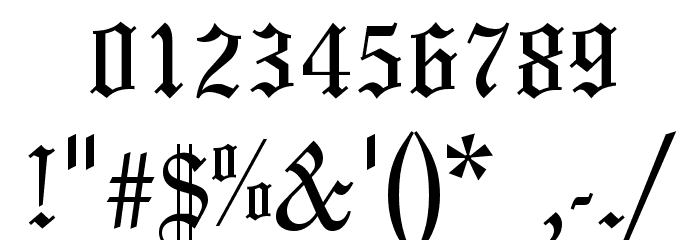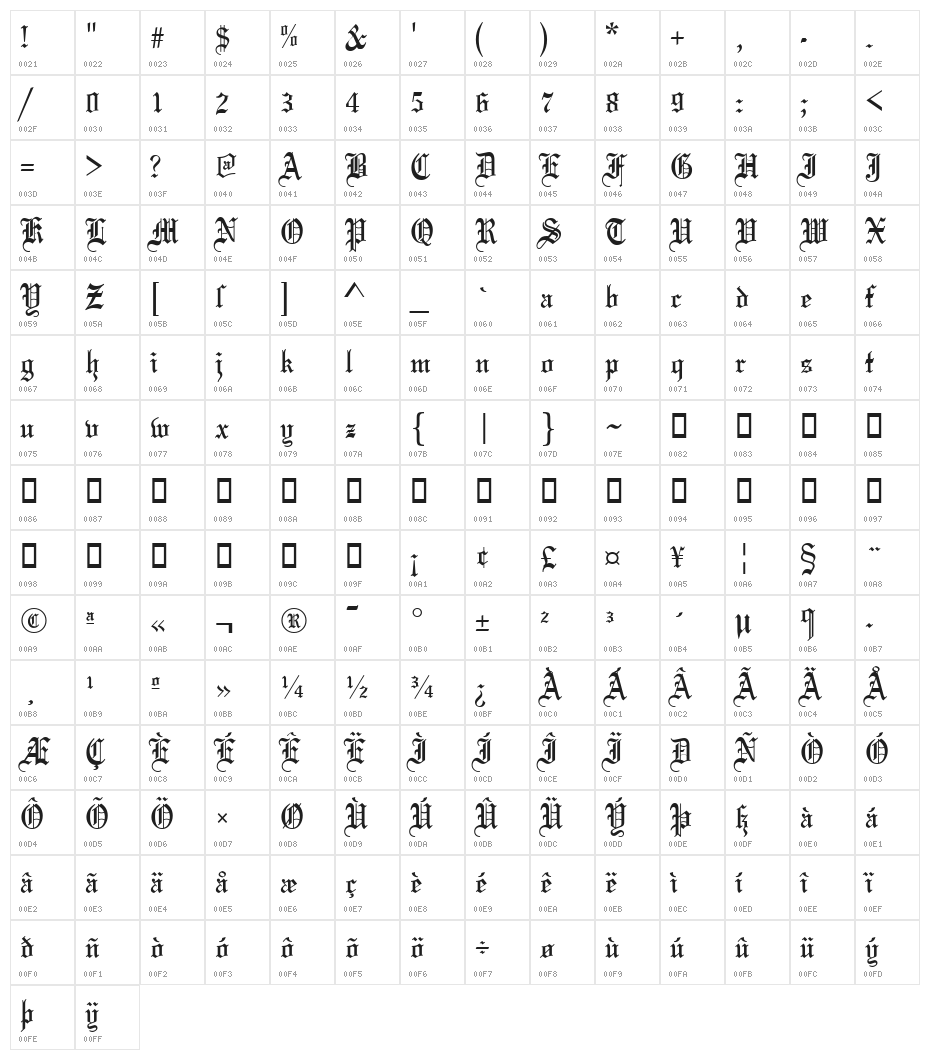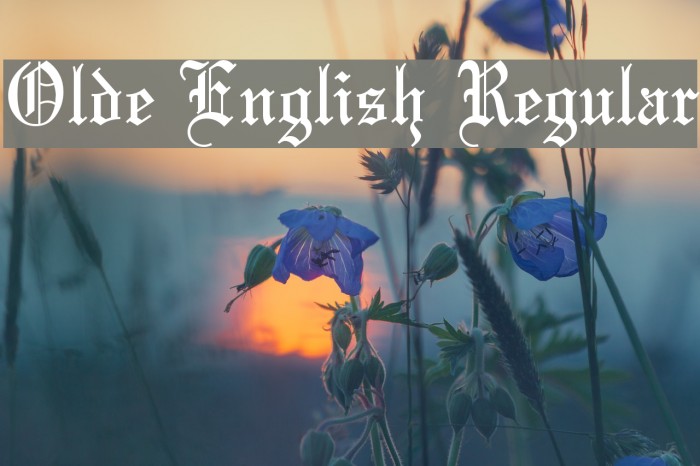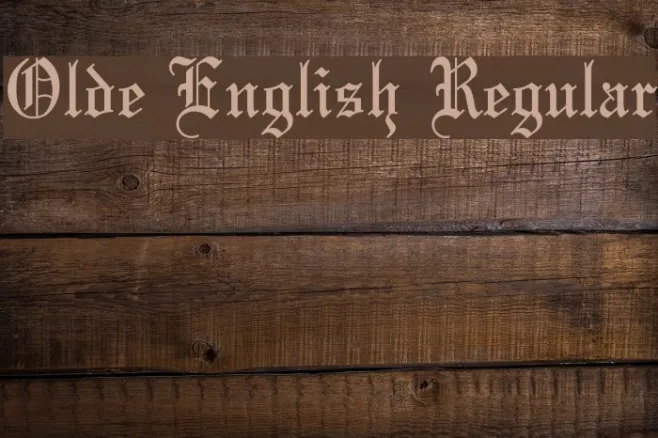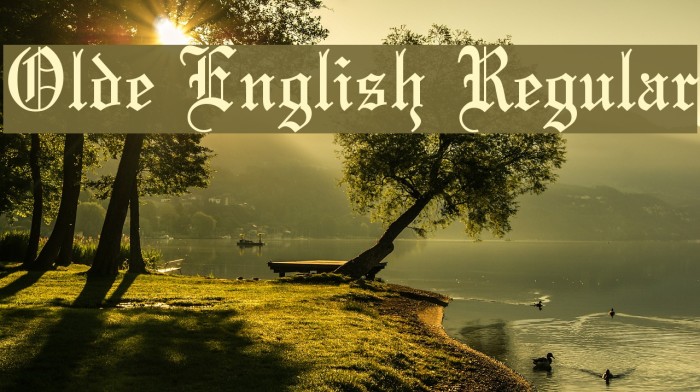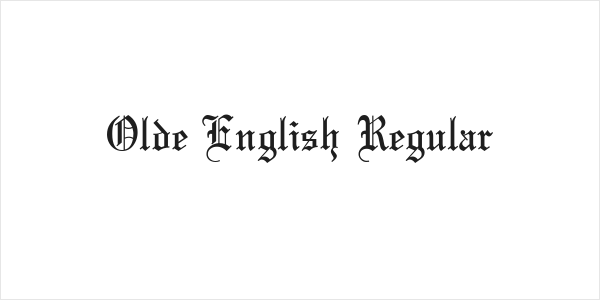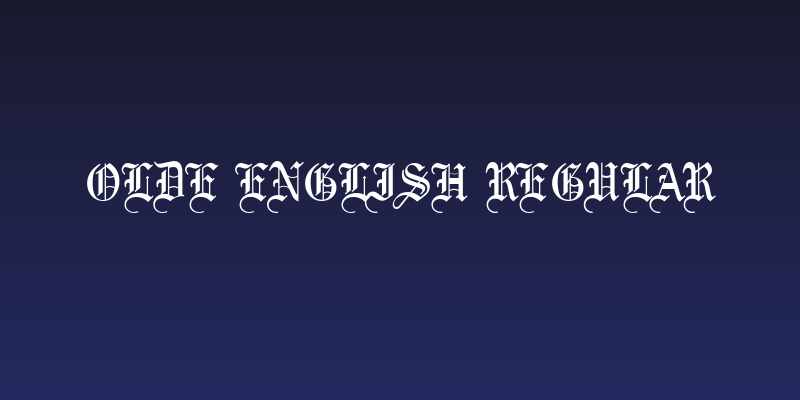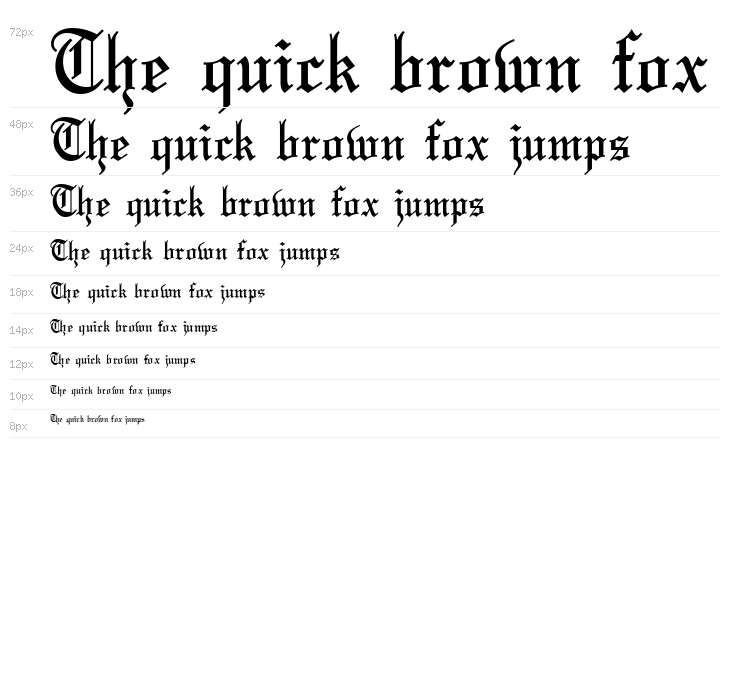
Olde English Regular Font
Olde English Regular Description
This font embodies the traditional elegance of Old English script, characterized by its intricate and ornate letterforms. The uppercase letters feature elaborate flourishes and sharp, angular lines, while the lowercase letters maintain a consistent style with slightly less embellishment. The numerals are bold and distinct, matching the overall aesthetic. Special characters are designed with the same attention to detail, ensuring a cohesive look across all glyphs. The font's historical and decorative nature makes it ideal for projects that require a touch of classic sophistication.
| Proposed Projects | Ideal for certificates, invitations, historical documents, and branding that requires a classic touch. |